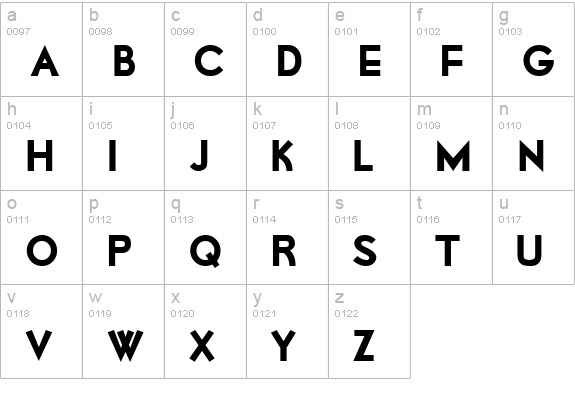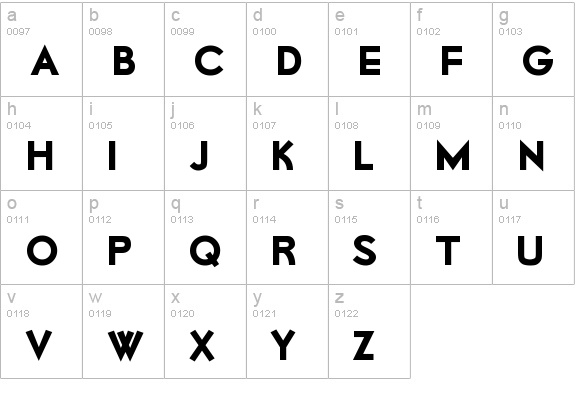
Lionel Classic Font Details
Lionel Classic font is a timeless and elegant typeface that exudes sophistication and charm. With its graceful curves and classic design, this font is perfect for adding a touch of class to any project. Whether you're working on a wedding invitation, a logo design, or a branding project, Lionel Classic font is sure to make a lasting impression. The best part? Lionel Classic font is completely free to download at FontsMarket.com. You can easily access this exquisite font and elevate your designs without breaking the bank. Don't miss out on this opportunity to enhance your creativity with the beauty of Lionel Classic font. Download it today and let your creativity soar!